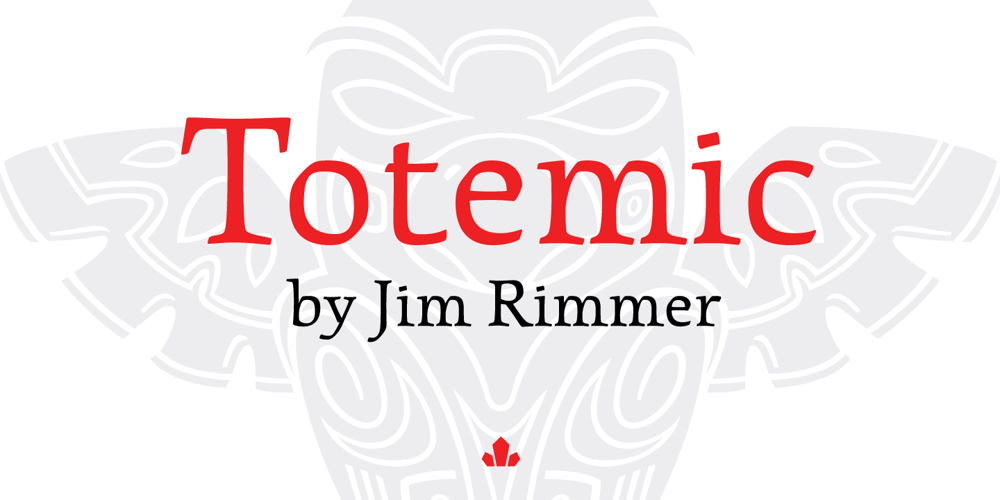
Totemic Font Family was designed by Jim Rimmer and published by Canada Type. Totemic contains 1 styles and family package options. Jim Rimmer’s first typeface was originally published in 1970 as a basic film type alphabet through a small, independent type house in central California. Its sources of influence (now calligraphic type standards by Dair, Goudy and Zapf) are ones that remained with Jim for the rest of his career. If you squint at Totemic in just the right way, you can see some recognizable themes Jim would later flesh out and make his own in later works throughout his career as a type designer and printer. Totemic is now available for the first time as a digital font, of the refined and expanded kind now expected from Canada Type. It comes with quite a few standard advanced typography features: Small caps, caps-to-small-caps, automatic fractions and standard ligatures, stylistic alternate sets, six kinds of figures, case-sensitive forms, and extended Latin language support. It also comes with a very unique and unprecedented feature: Variably stackable totem poles. Simply enable the discretionary ligatures feature, type any unique three-digit combination using numbers between 1 and 4, and watch the magic happens. With a name like Totemic, we just couldn’t help ourselves. Many thanks to Andrew Steeves of Gaspereau Press for finding Jim’s lost gem in a most unexpected place, and for helping us bring it back to life 45 years after its analog birth. 20% of Totemic’s revenues will be donated to the Canada Type Scholarship Fund, supporting higher typography education in Canada.